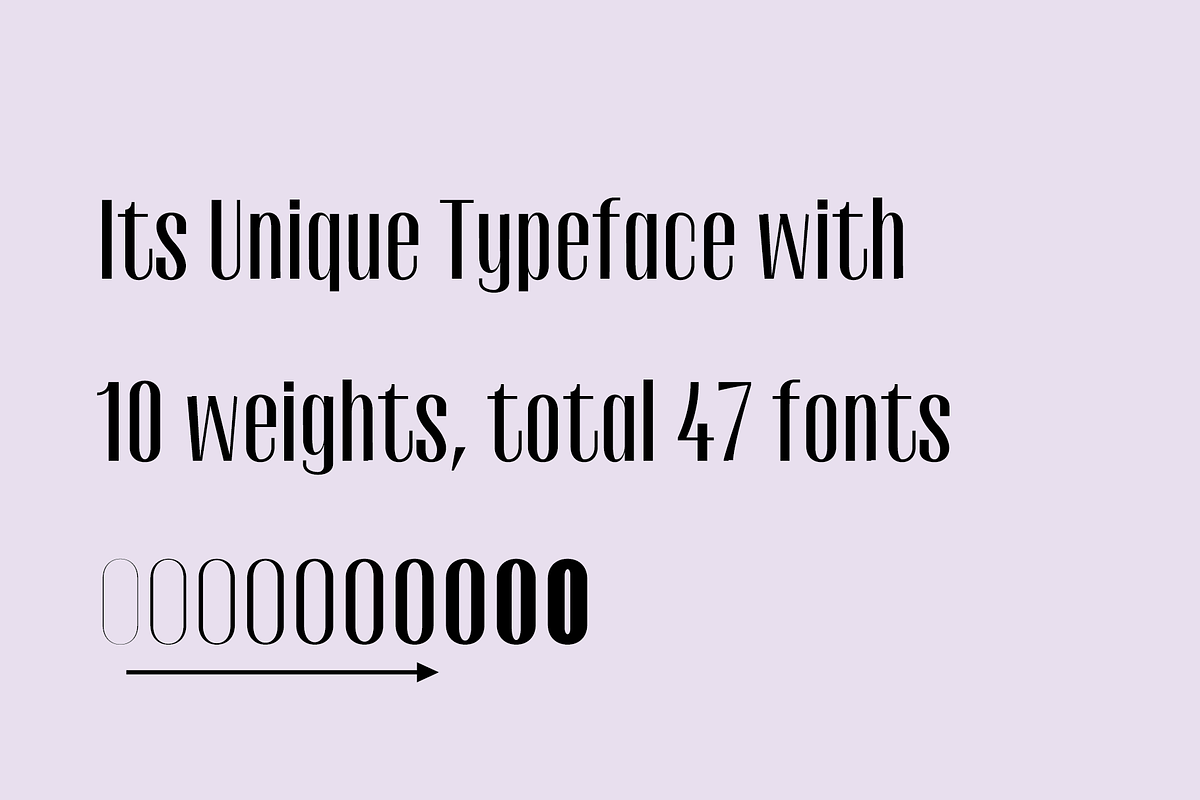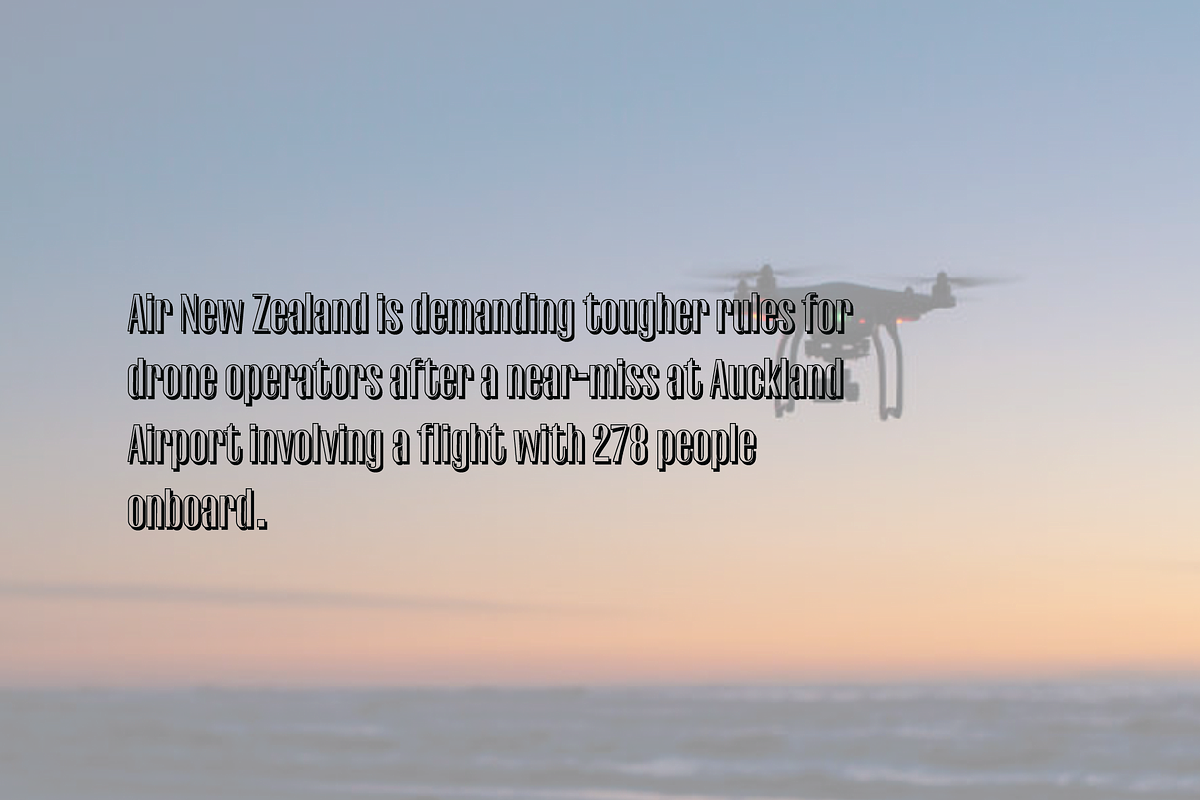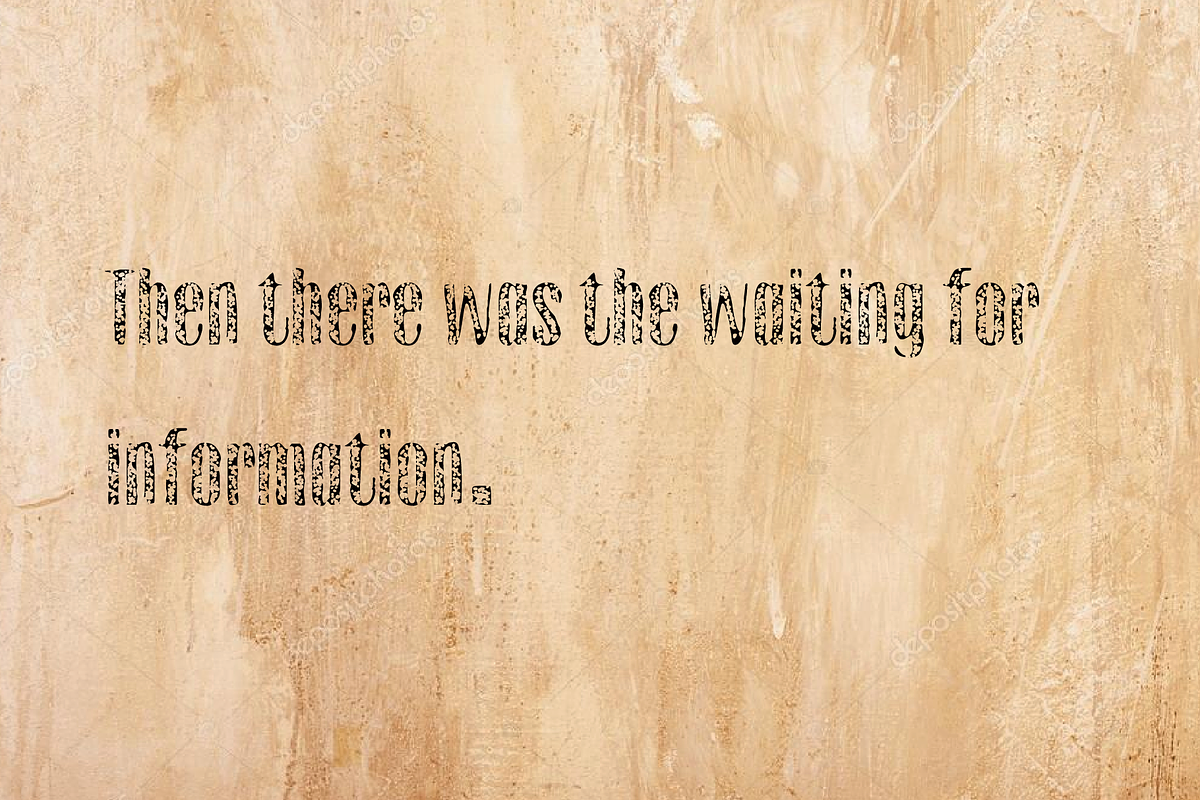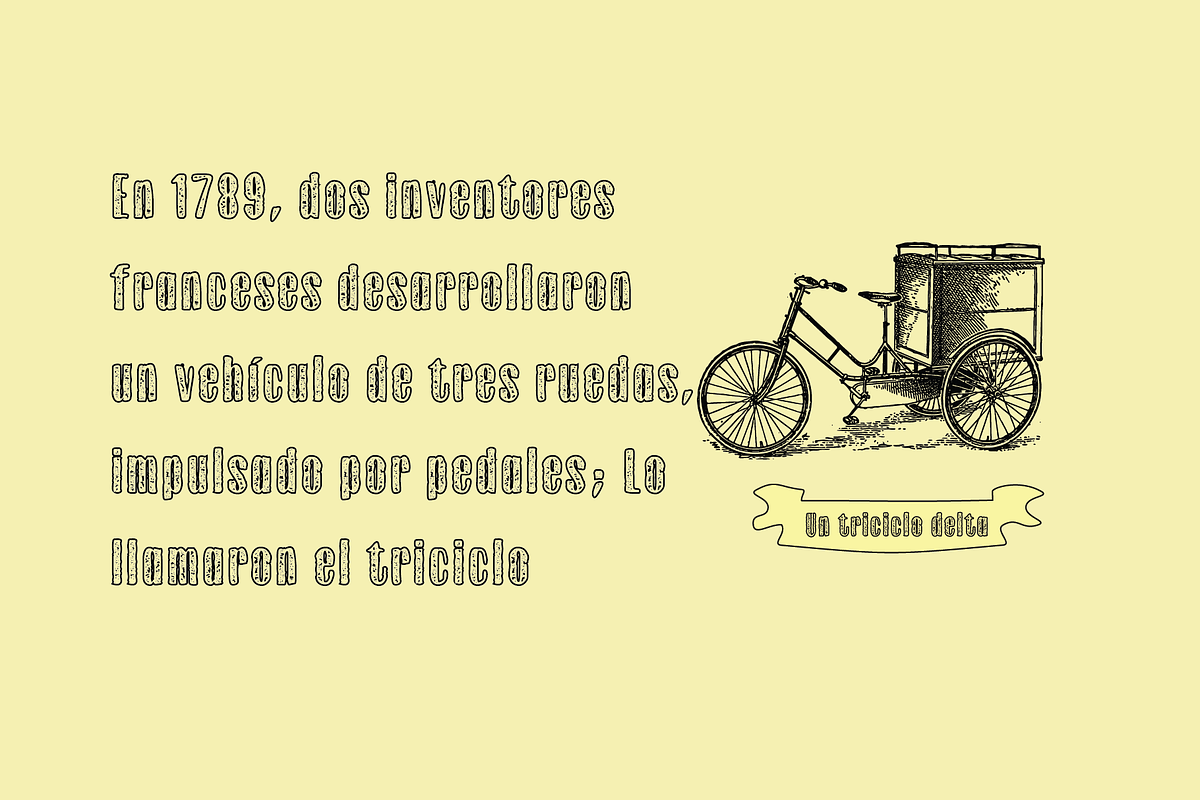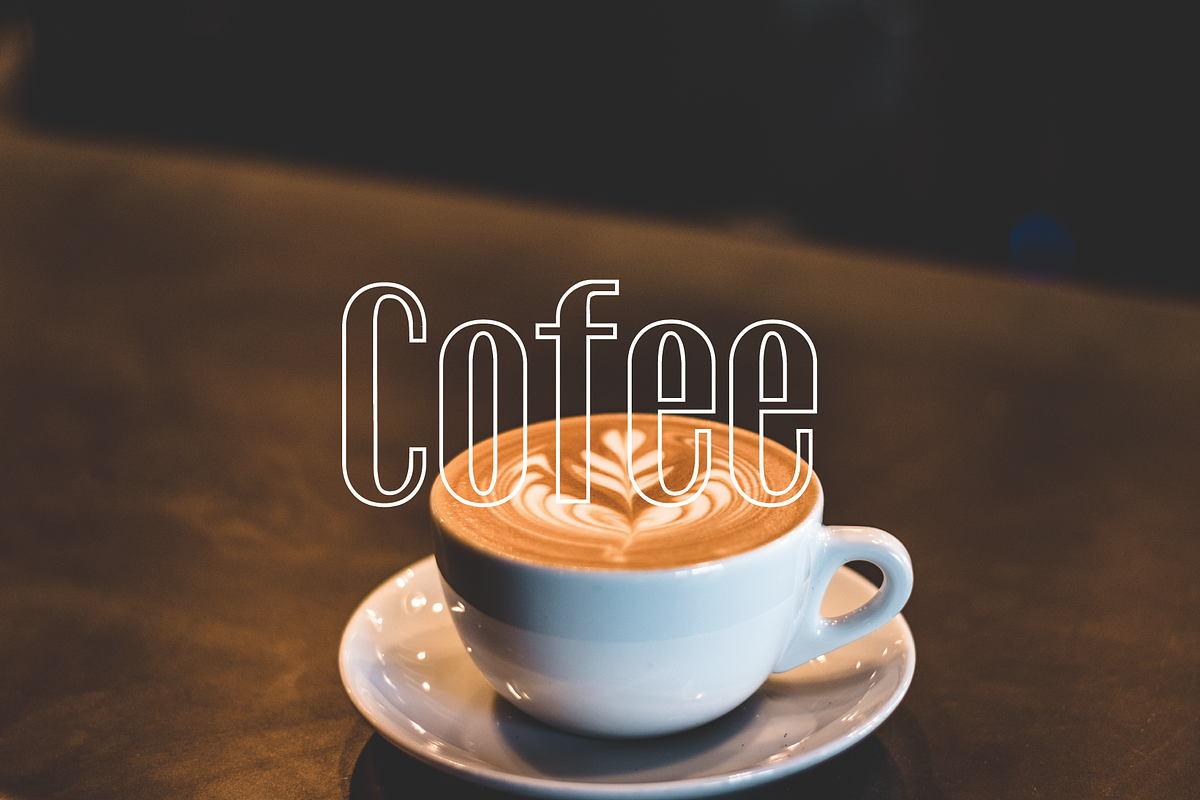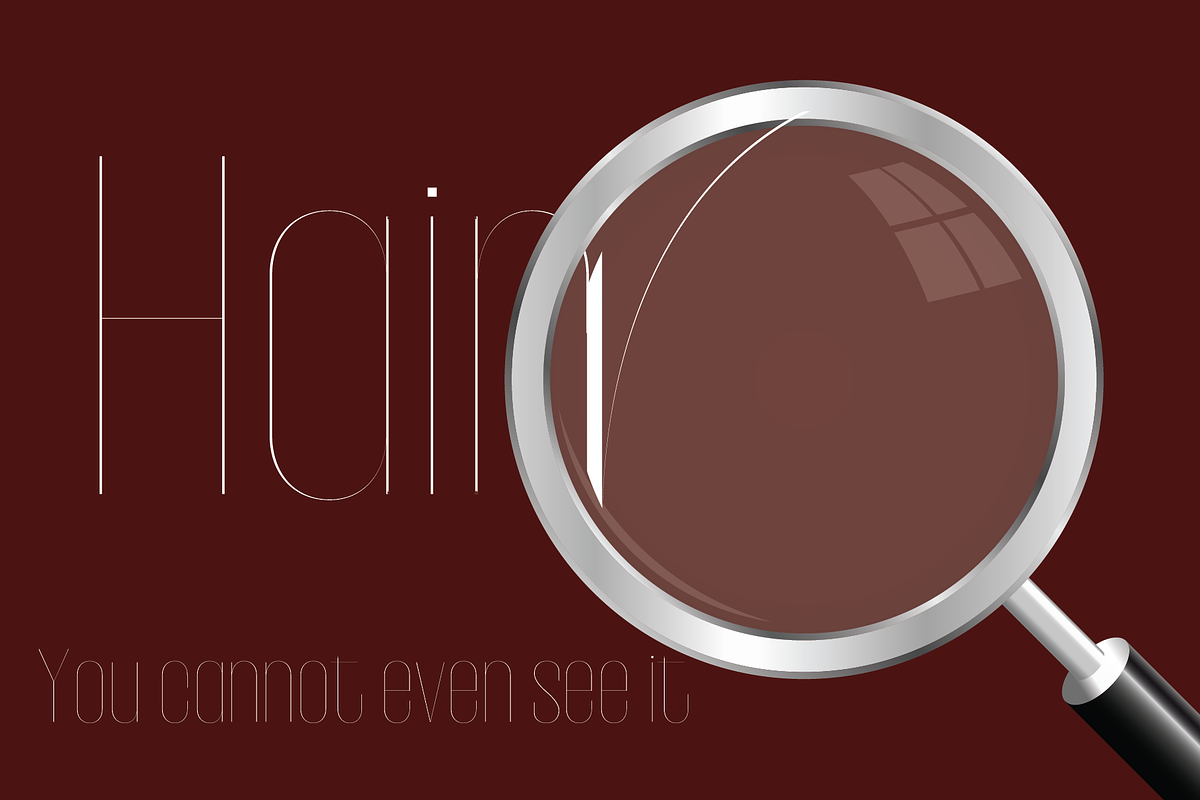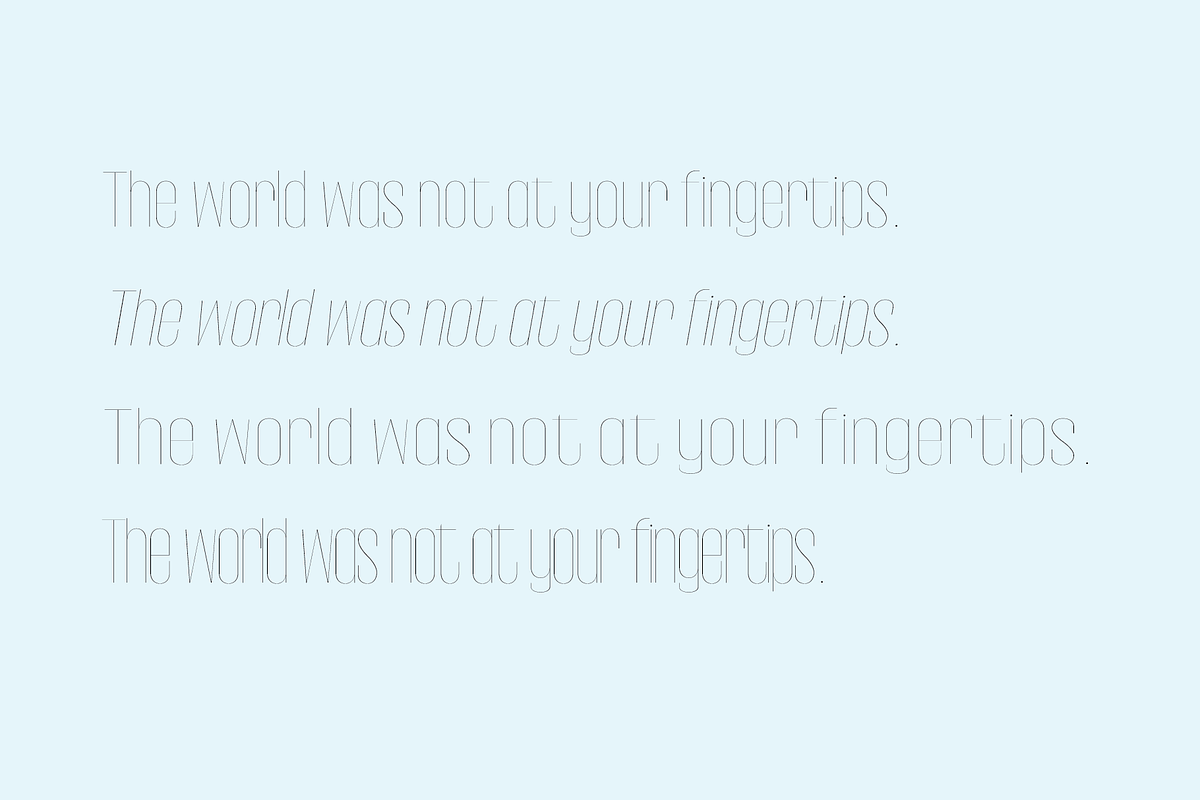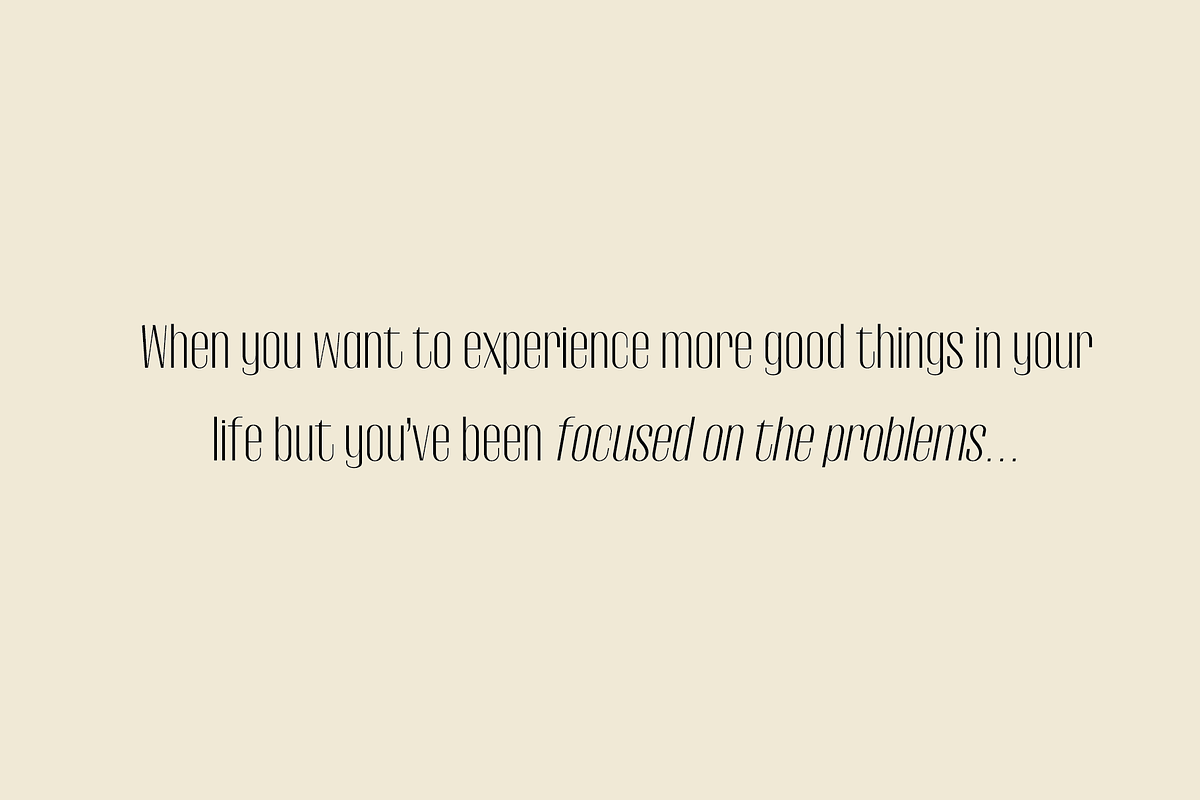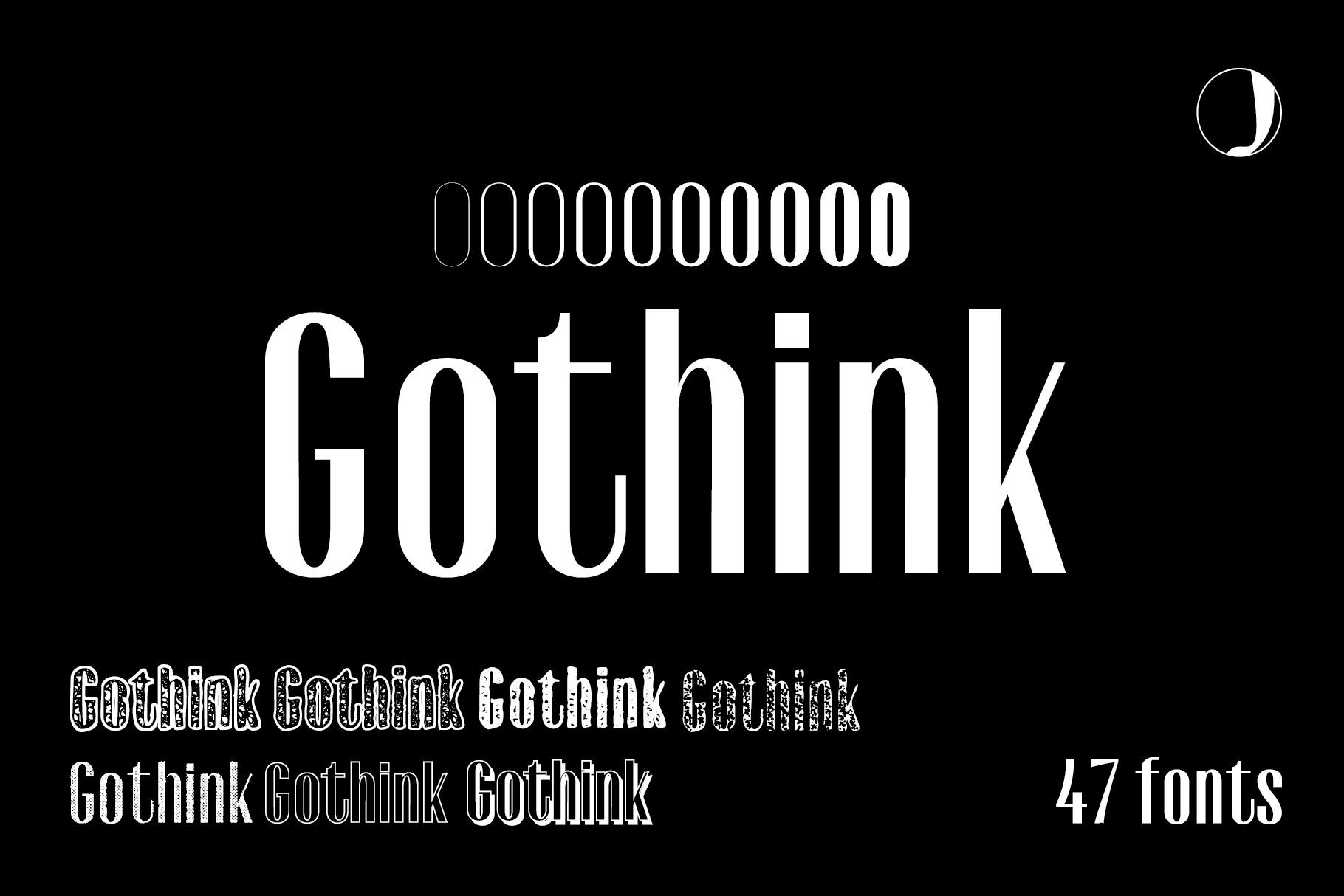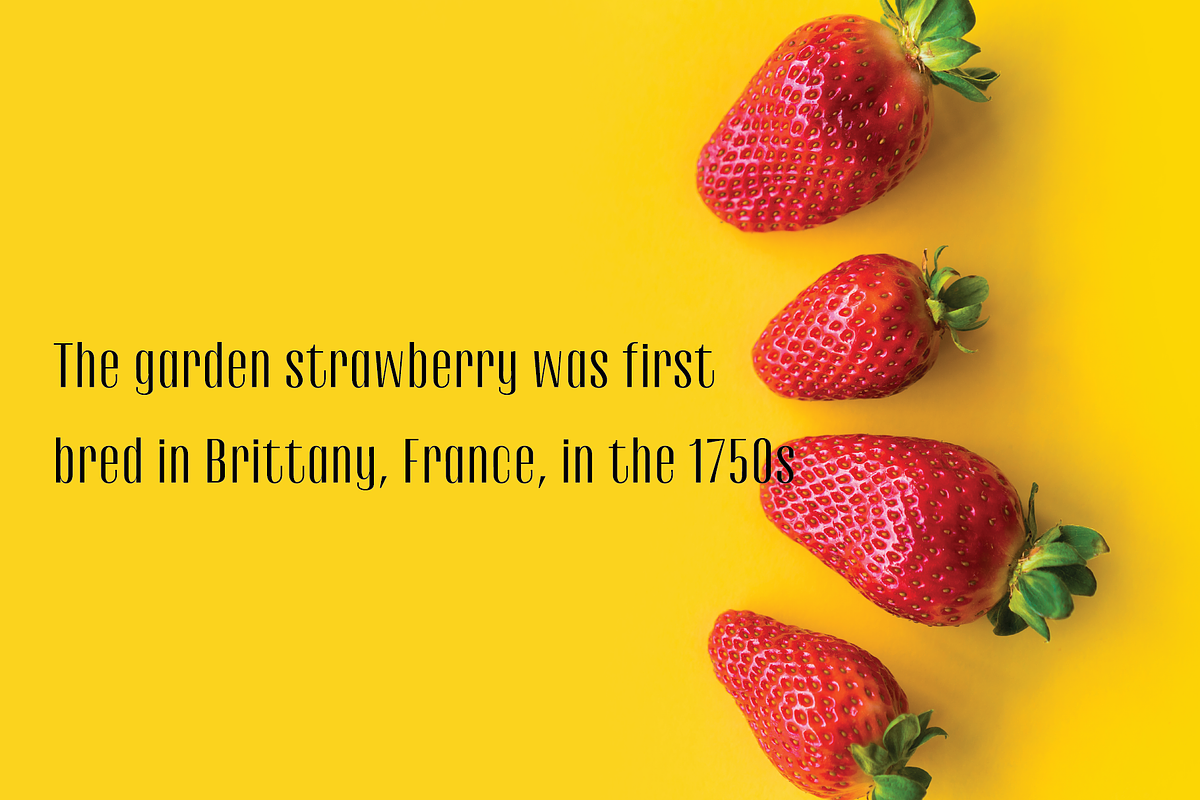
Gothink Serif Fonts
Gothink is unique set of fonts having 10 weight variation and 4 styles. It also contain shadow, outline, aged, and rough types. This is luxury font family for some modern look as well as give you full range of some other option with outline and aged series. That is crafted carefully and would love to see on you new projects. There are 47 fonts in great price. You will never regret to buy that. enjoy the flavored modern and retro styled font series..